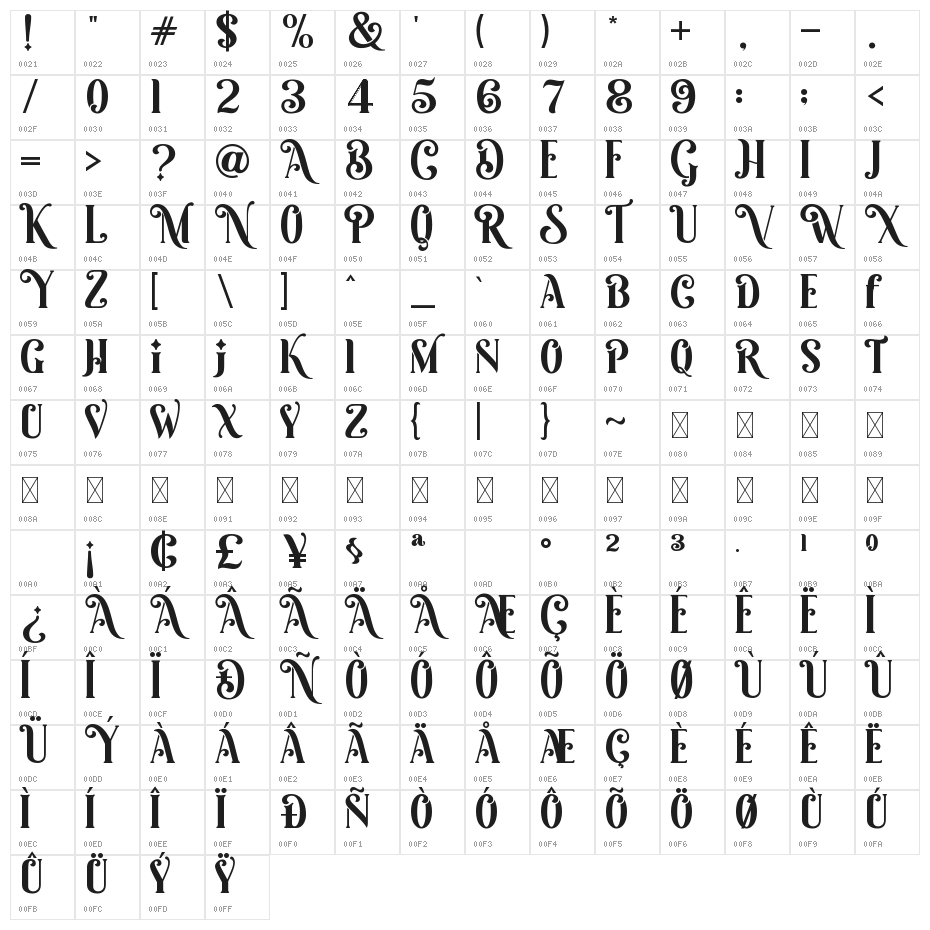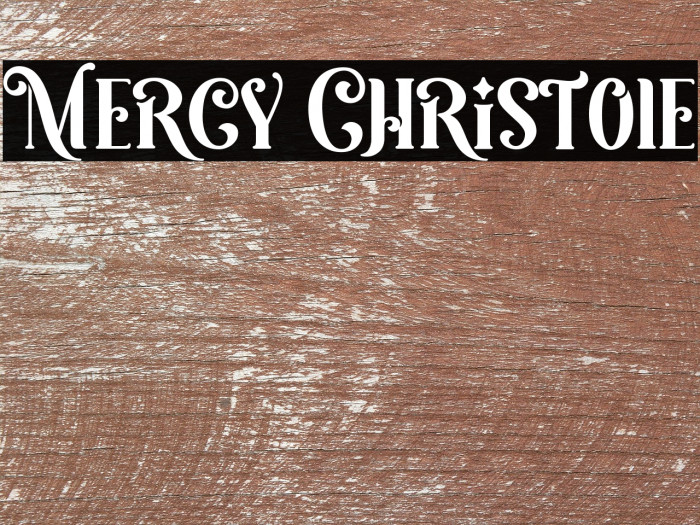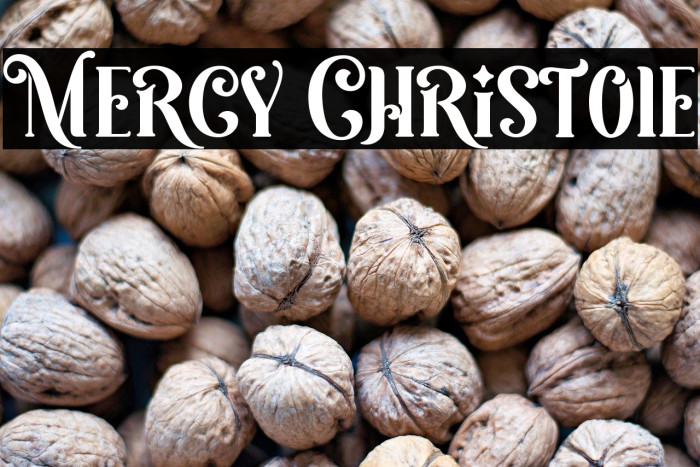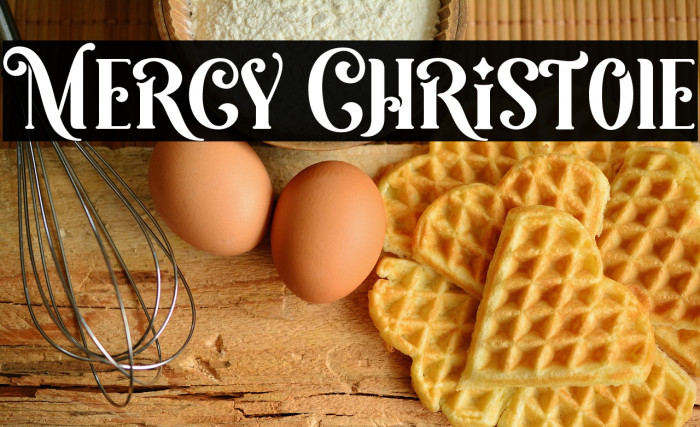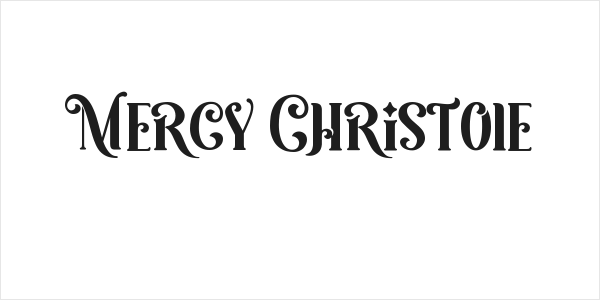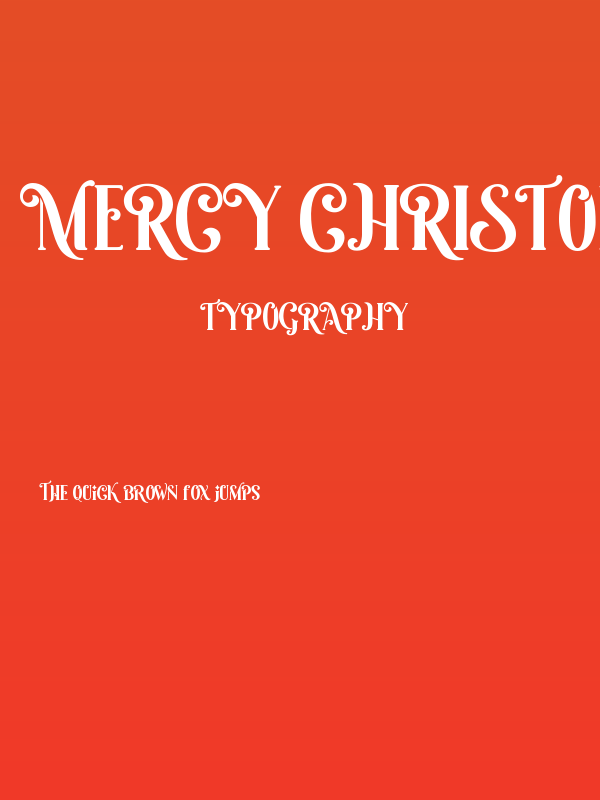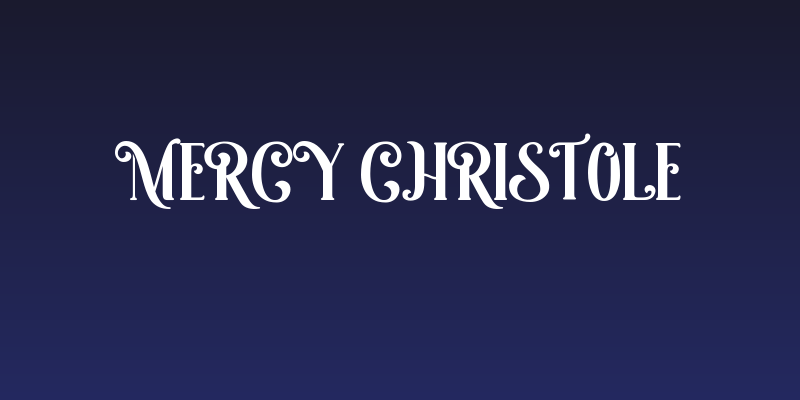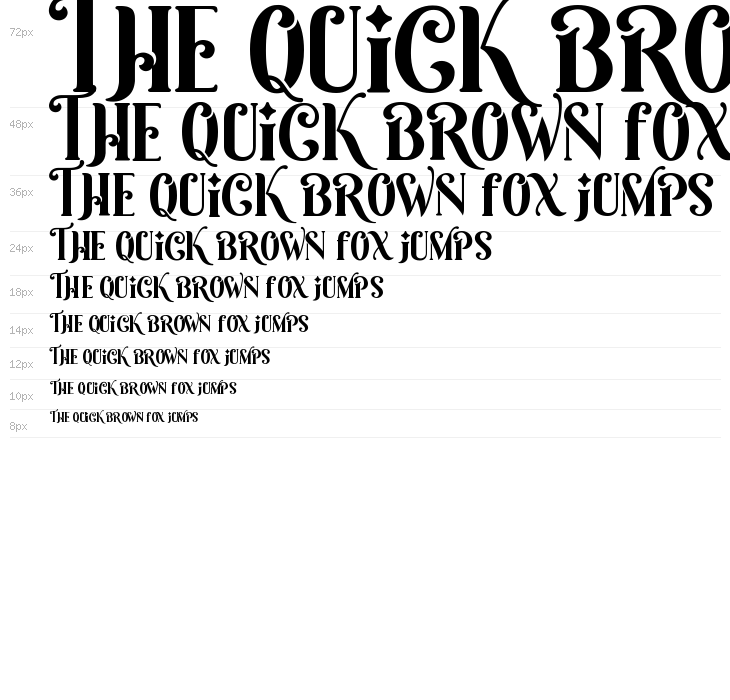
Mercy Christole Font
Mercy Christole Description
This font features a distinctive and decorative style, characterized by its bold and elaborate letterforms. The uppercase letters exhibit a unique blend of curves and sharp edges, creating a sense of elegance and flair. The lowercase letters maintain a consistent style, with intricate details that enhance their visual appeal. Numbers and special characters are equally ornate, contributing to the font's cohesive aesthetic. The overall design is reminiscent of vintage or retro styles, yet it maintains a modern touch through its clean lines and balanced proportions. This font is ideal for projects that require a touch of sophistication and creativity.
| Overall Style | Vintage, Decorative |
| Proposed Projects | Ideal for branding, posters, invitations, and any design that requires a decorative and sophisticated touch. |